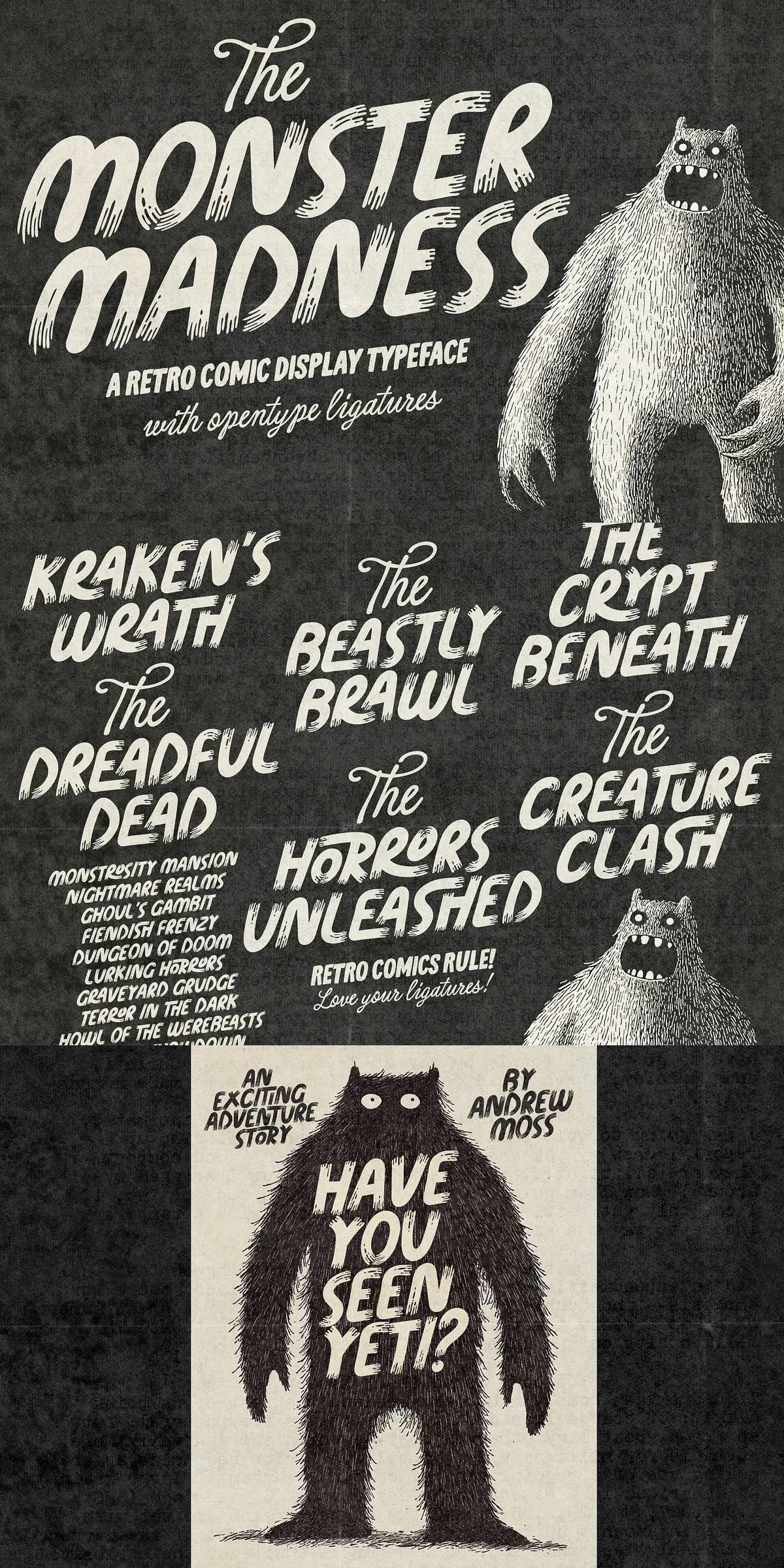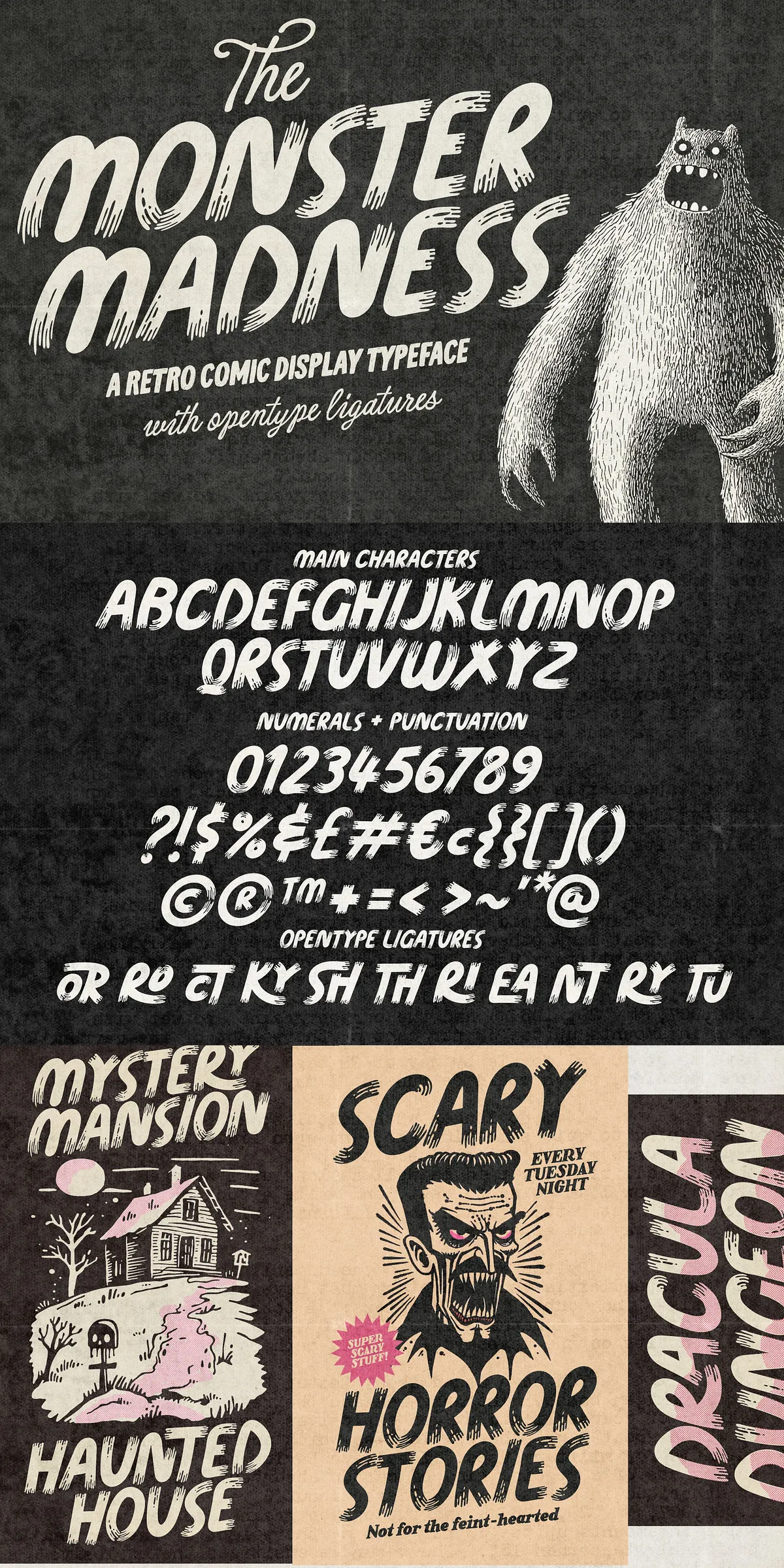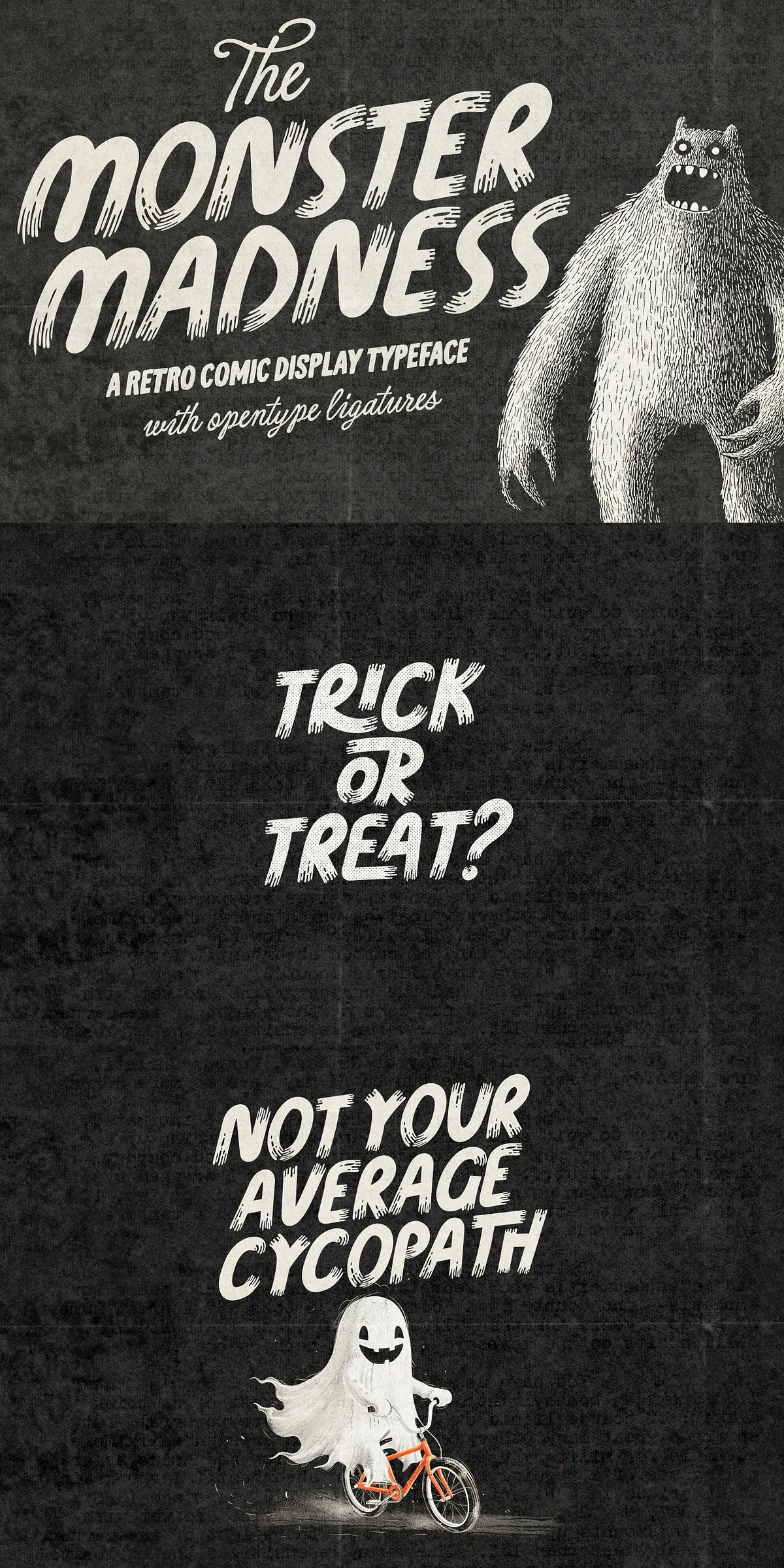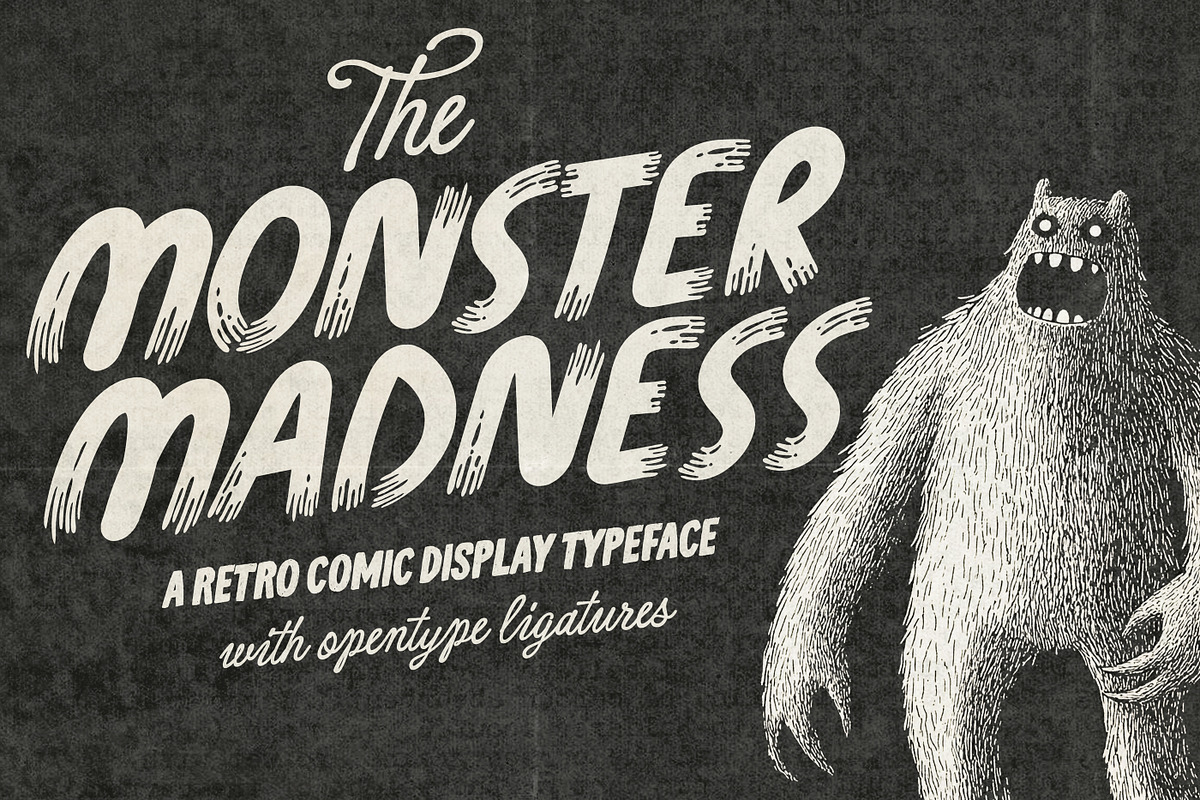
Monster Madness delivers a playful, high-energy comic-book aesthetic that activates headlines, posters, and themed branding. The typeface channels retro charm while maintaining clean, modern construction so that text reads clearly at display sizes. Turn on OpenType ligatures to unlock seamless connected forms and alternate glyphs that add personality and rhythm to copy. When you enable ligatures, text gains a handcrafted flow that elevates headlines, titles, and logotypes with authentic comic-book motion.
Three Dynamic Styles Upright Regular Oblique For Versatility
Monster Madness ships in three complementary style variants—Upright, Regular, and Oblique—so you can deploy the typeface across a range of visual contexts. Use Upright for bold, stable headings; Regular for general display work with balanced contrast; and Oblique where you need added dynamism and forward motion. The three styles let you create hierarchy and emphasis without introducing a different family, keeping designs cohesive and expressive.
- Three style variants: Upright, Regular, and Oblique for flexible typographic hierarchy.
- Character sets that include numerals, punctuation, and language-specific glyphs.
Recommended Uses Posters Logos And Holiday Themed Branding
Apply Monster Madness to seasonal campaigns, event posters, comic panels, children’s books, and themed packaging where exuberant personality matters. The typeface shines in large display settings—titles, signage, hero blocks, and badge-style logos—where its retro energy registers instantly. Pair Monster Madness with a neutral sans-serif or a simple slab for body copy to preserve readability and create clear visual contrast.